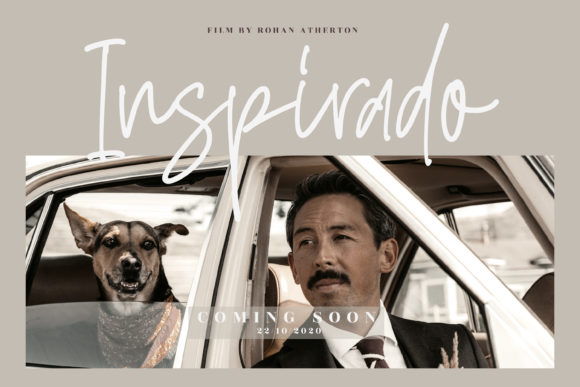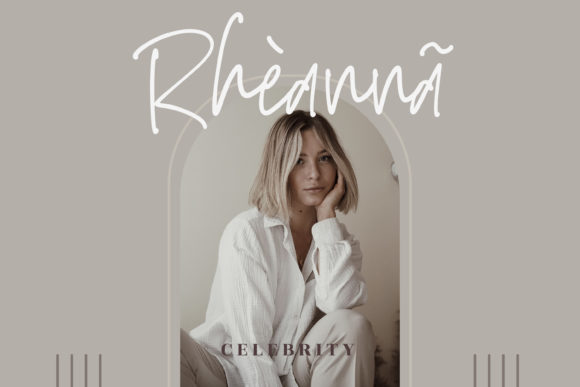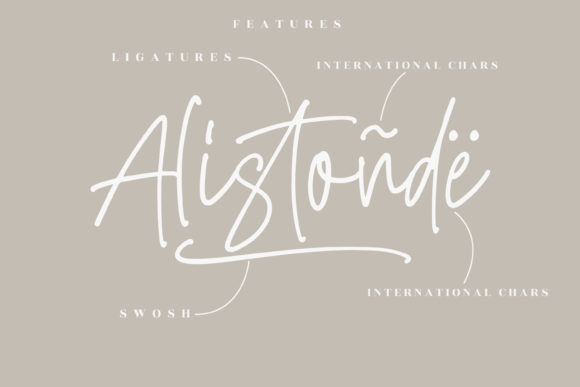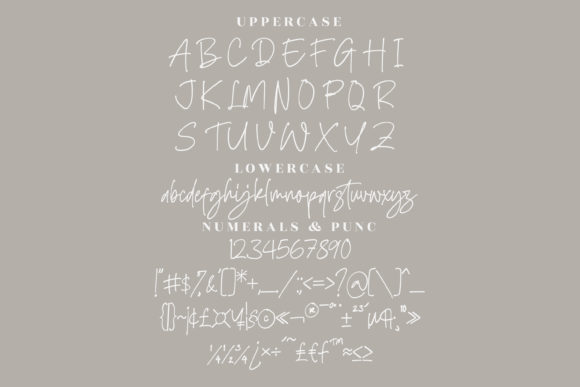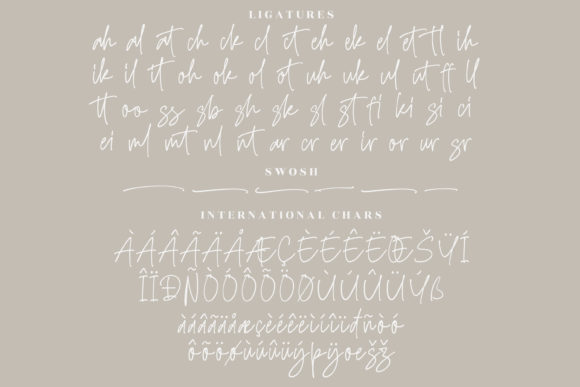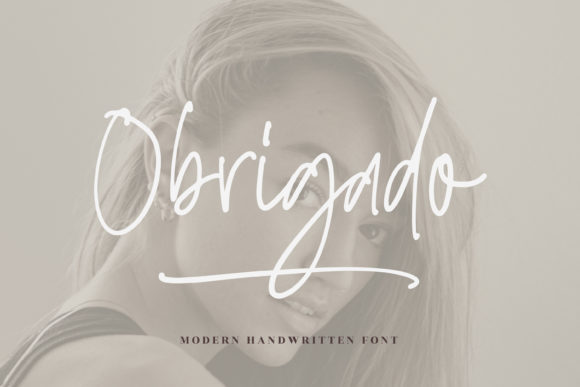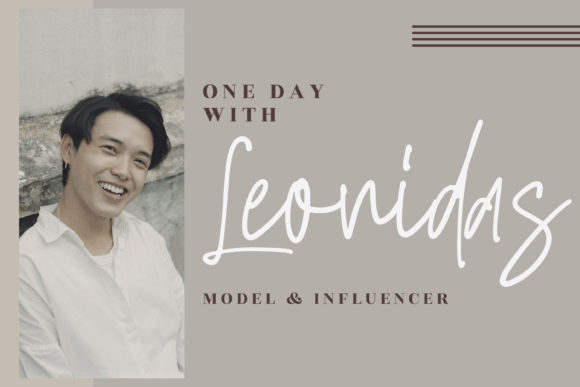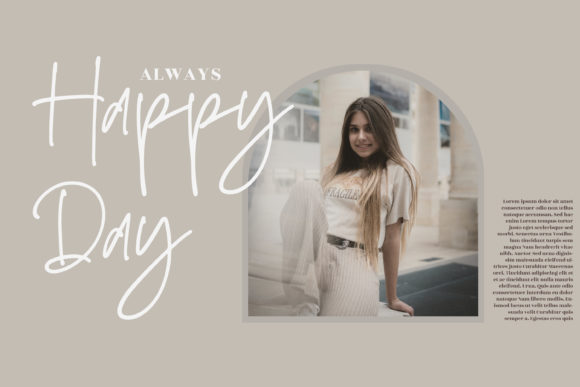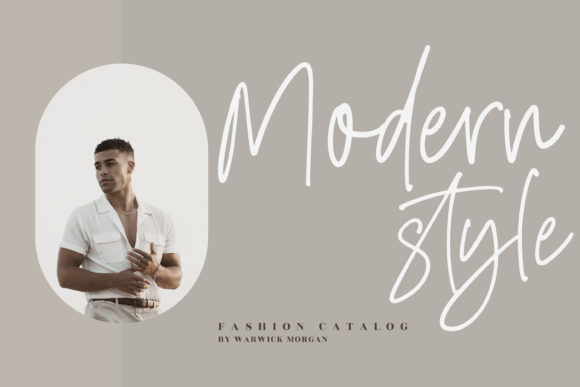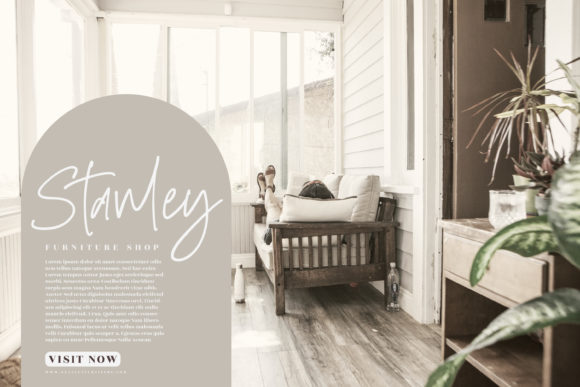
Alistonde Font
Alistonde is a fashionable and delicate calligraphy typeface with characters that dance along the baseline. It will add a luxury spark to any design project that you wish to create! This font is PUA encoded which means you can access all of the amazing glyphs and ligatures with ease!